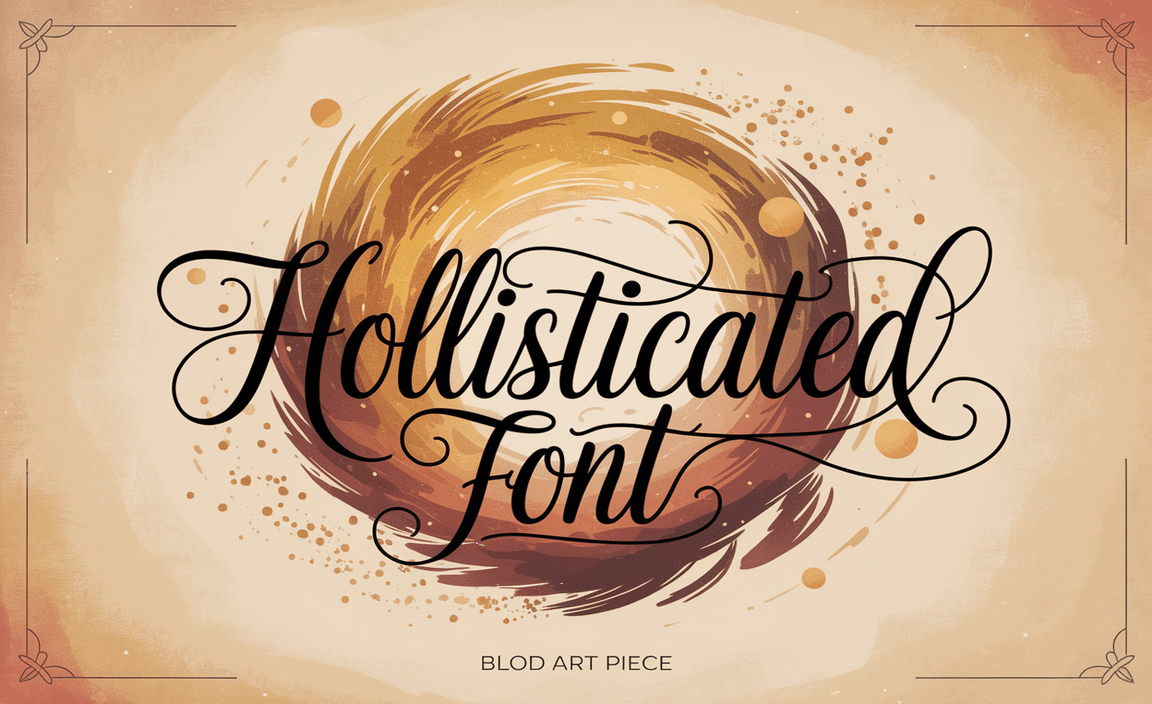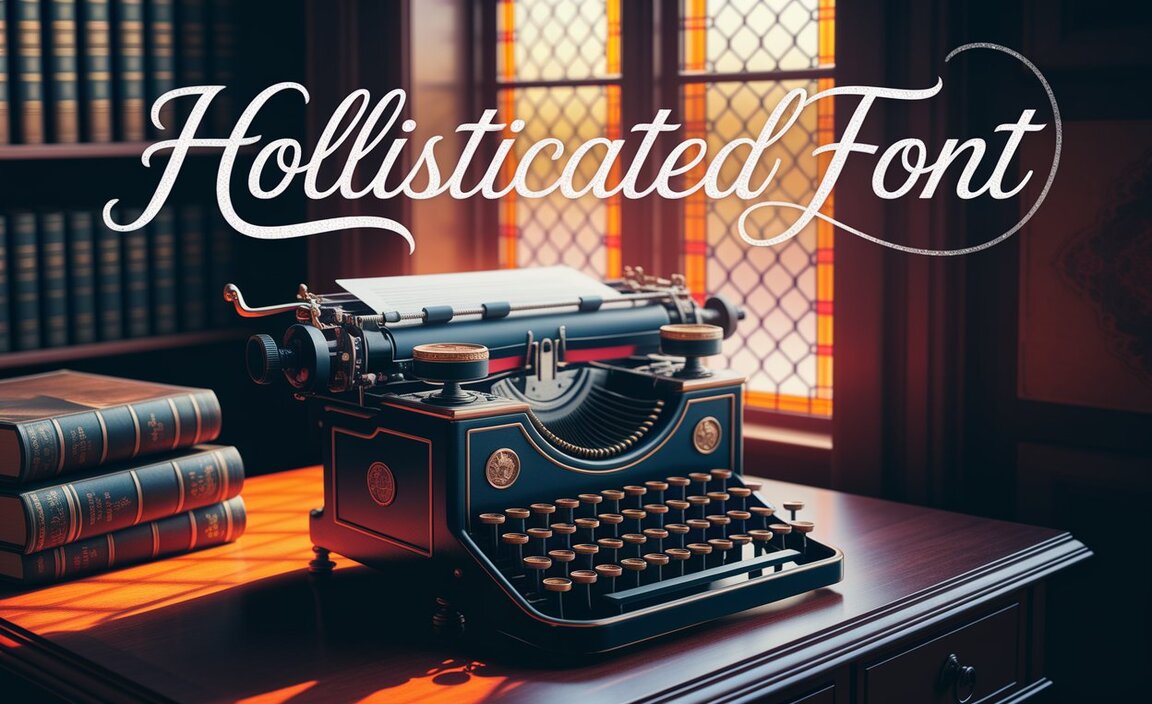
The Hollisticated Font, crafted by the talented designer Pollux of Geminorum, is a luxurious handwritten script typeface that blends sophistication with creative versatility. Its graceful curves, smooth flow, and meticulous design details make it the perfect choice for professional and personal projects. Whether you’re creating logos, invitations, posters, or websites, Hollisticated Font delivers an elegant and classy look to elevate your designs.
The Hollisticated Font Family
The Hollisticated Font Family features a single, exquisitely designed style:
- Hollisticated Regular: A refined script font ideal for various design applications, including branding, social media graphics, and editorial layouts.
Using Occasions Of The Hollisticated Font
The versatility of Hollisticated Font makes it an excellent choice for numerous creative projects. Here are some popular use cases:
- Logos: Create memorable, high-quality branding with a touch of elegance.
- Wedding Invitations: Add a luxurious and sophisticated feel to special event stationery.
- Posters: Enhance visual impact with its flowing, graceful style.
- Editorial Design: Perfect for magazine layouts and digital publications.
- Websites: Bring sophistication to online branding and digital content.
Hollisticated Font Found In Use
This high-quality script font shines in:
- Wedding and event stationery.
- High-fashion branding and logos.
- Posters and banners with artistic flair.
- Websites that require a classy and elegant aesthetic.
- Printed materials like brochures and greeting cards.
The Hollisticated Font is a beautifully designed handwritten script that combines modern aesthetics with timeless elegance. Its flowing strokes and elegant details make it perfect for branding, invitations, editorial designs, and more. With its multilingual character support and availability for personal and commercial use, Hollisticated is ideal for creatives seeking a refined and classy design solution.
1.What Is The Hollisticated Font, And Why Is It Special?
Hollisticated Font is a luxurious handwritten script celebrated for its elegant, classy look, smooth curves, and high-quality design. It’s ideal for various creative projects like branding and event invitations.
2.What Styles Are Included In The Hollisticated Font Family?
3.Does Hollisticated Font Support Multilingual Designs?
Yes, Hollisticated Font includes a character map with multilingual character support, making it perfect for global projects.
4.What Are The Best Use Cases For Hollisticated Font?
Hollisticated Font excels in:
- Branding and logos
- Wedding invitations
- Posters and banners
- Editorial and website designs
6.What Makes Hollisticated Font Ideal For Creative Designs?
Hollisticated Font’s flowing strokes, refined aesthetics, and classy appeal make it a standout choice for designers aiming for elegance and sophistication.
8.What Types Of Projects Benefit From Hollisticated Font?
Hollisticated Font is ideal for projects like:
- High-quality branding and logos
- Elegant wedding stationery
- Artistic posters and printed materials
- Digital content and website design